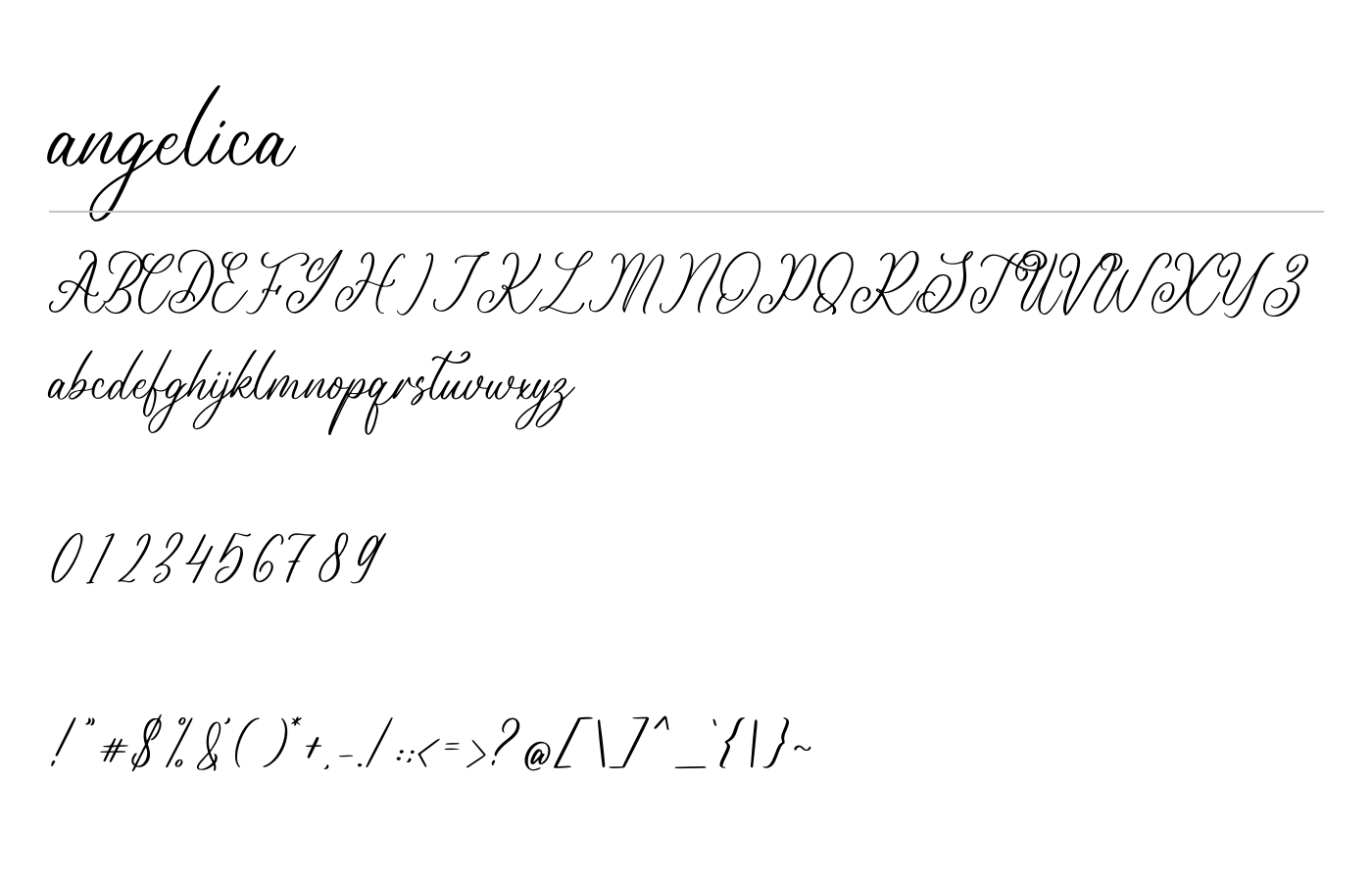
Angelica is an elegant script font with delicate, flowing strokes that evoke a graceful, handwritten style. Its slender, slightly slanted letterforms and refined curves make it perfect for sophisticated branding, invitations, and stylish editorial designs where a touch of charm and femininity is desired. This font works well in contexts that call for a personal, artistic feel without sacrificing readability.
angelica Font
About angelica Font